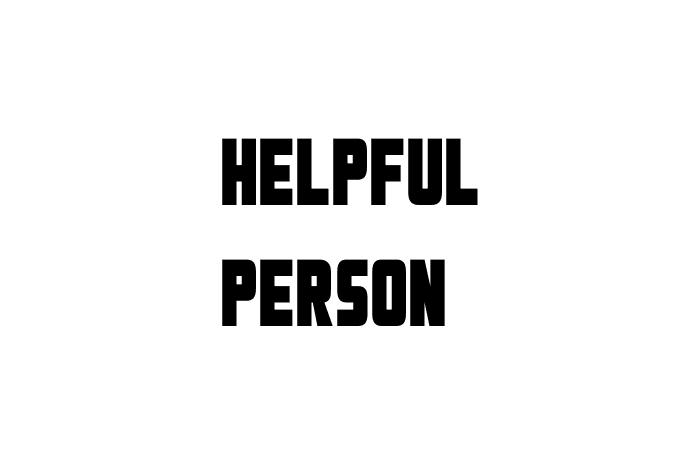
region Font
region Font an elegant sans serif inspired by the famous minimalist logo perfect for the purposes of designing templates, brochures, videos, advertising branding, logos, invitation, layout design, elegant crafting, beauty design and other
Font designer Usman Albaehaqi
Typeface classification Basic,Sans Serif